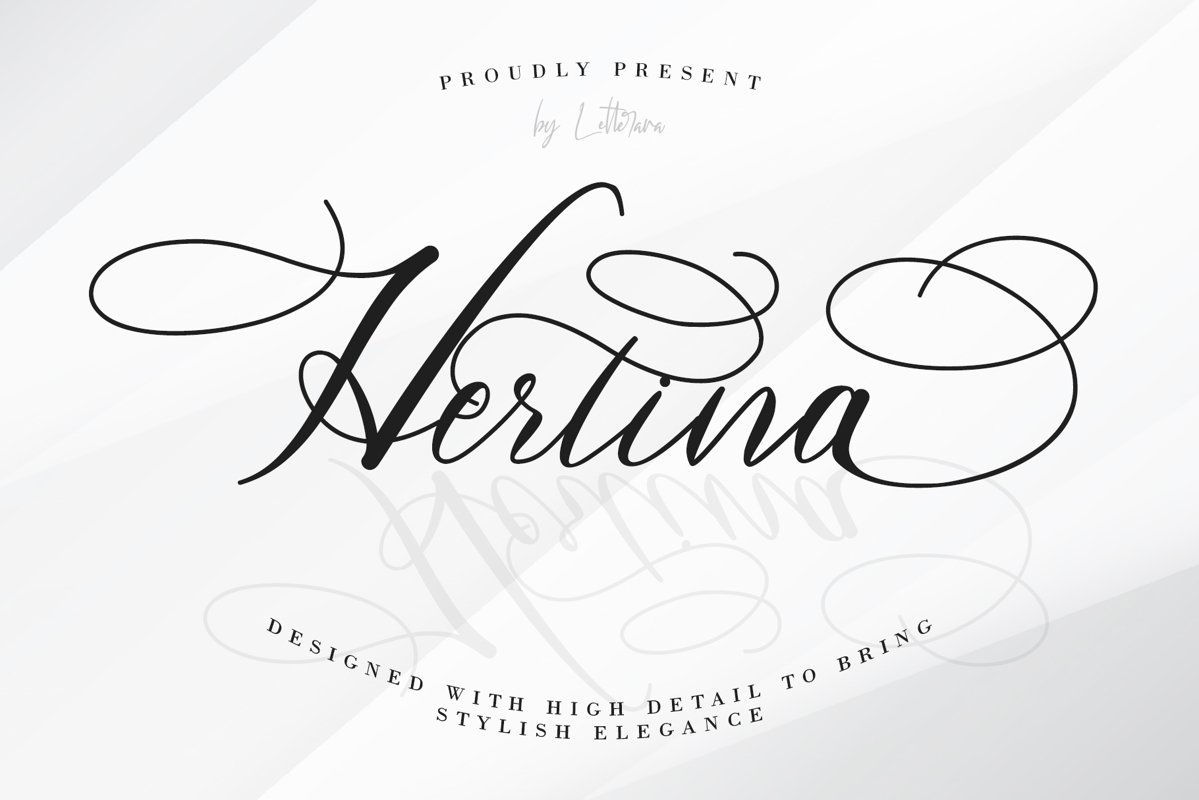
Hertina
Hertina Italic
Hertina
Hertina designed With High Detail To Bring Stylish Elegance.
this font is for those who are in need of an elegant and appropriately
modern calligraphy script. that are also beautiful